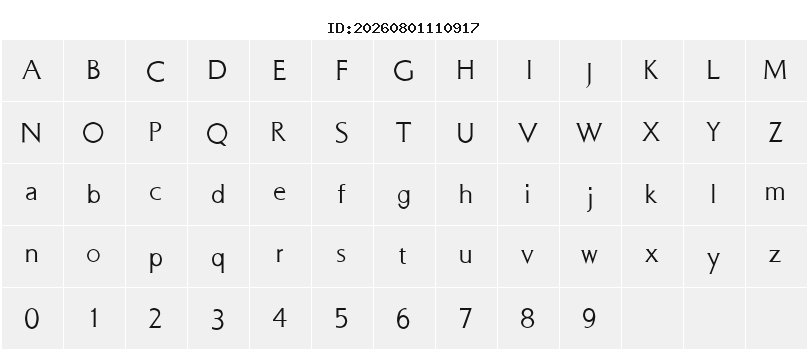
LHF Kellie Ann Preview
• Font Name: LHF Kellie Ann
• Font Style: Roman
• Full Font Name: LHF Kellie Ann
About LHF Kellie Ann.ttf
LHF Kellie Ann.ttf is a modern, elegant sans-serif font designed for ultimate readability and visual harmony. Perfect for branding, headlines, web design, and print materials.